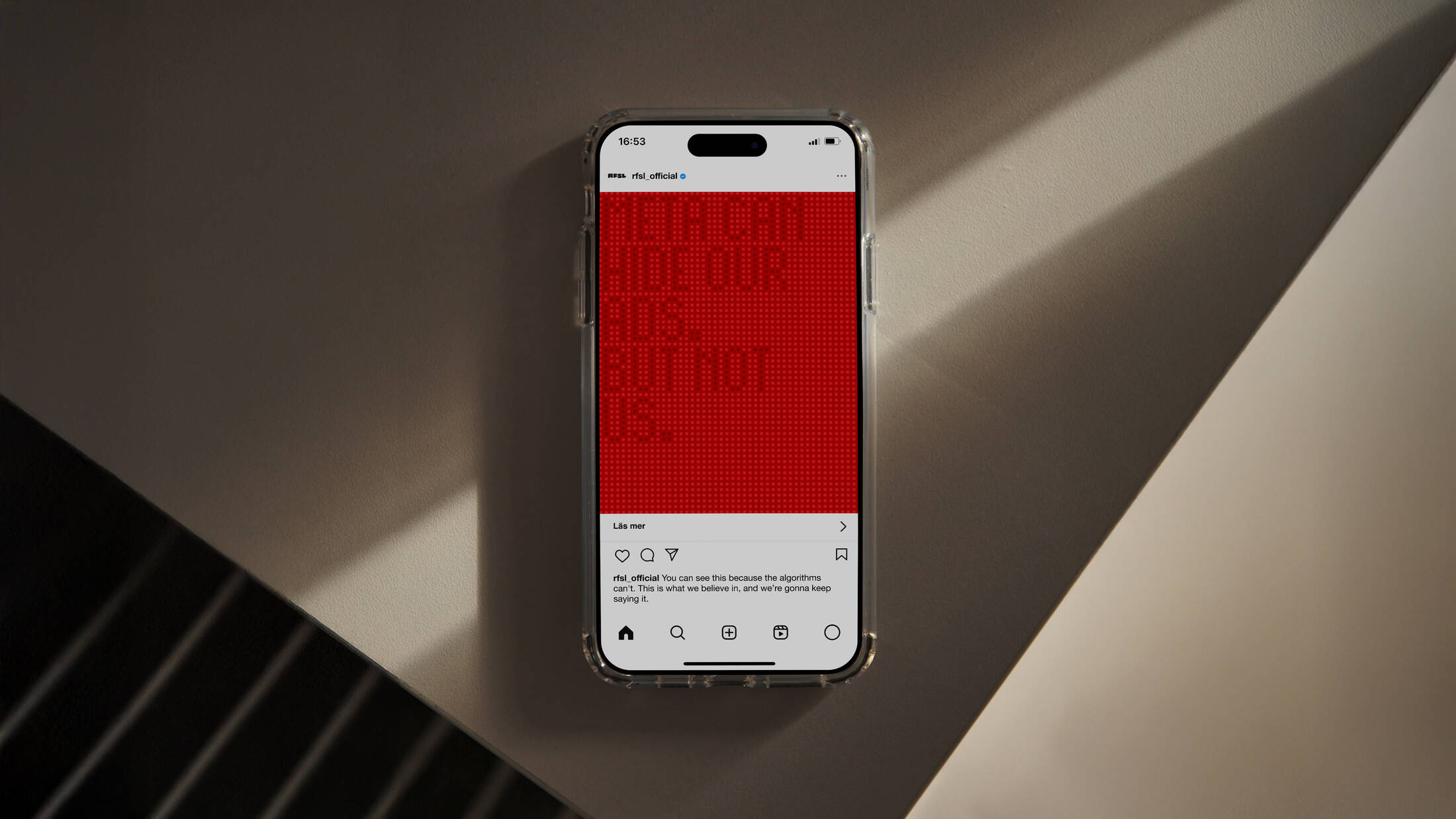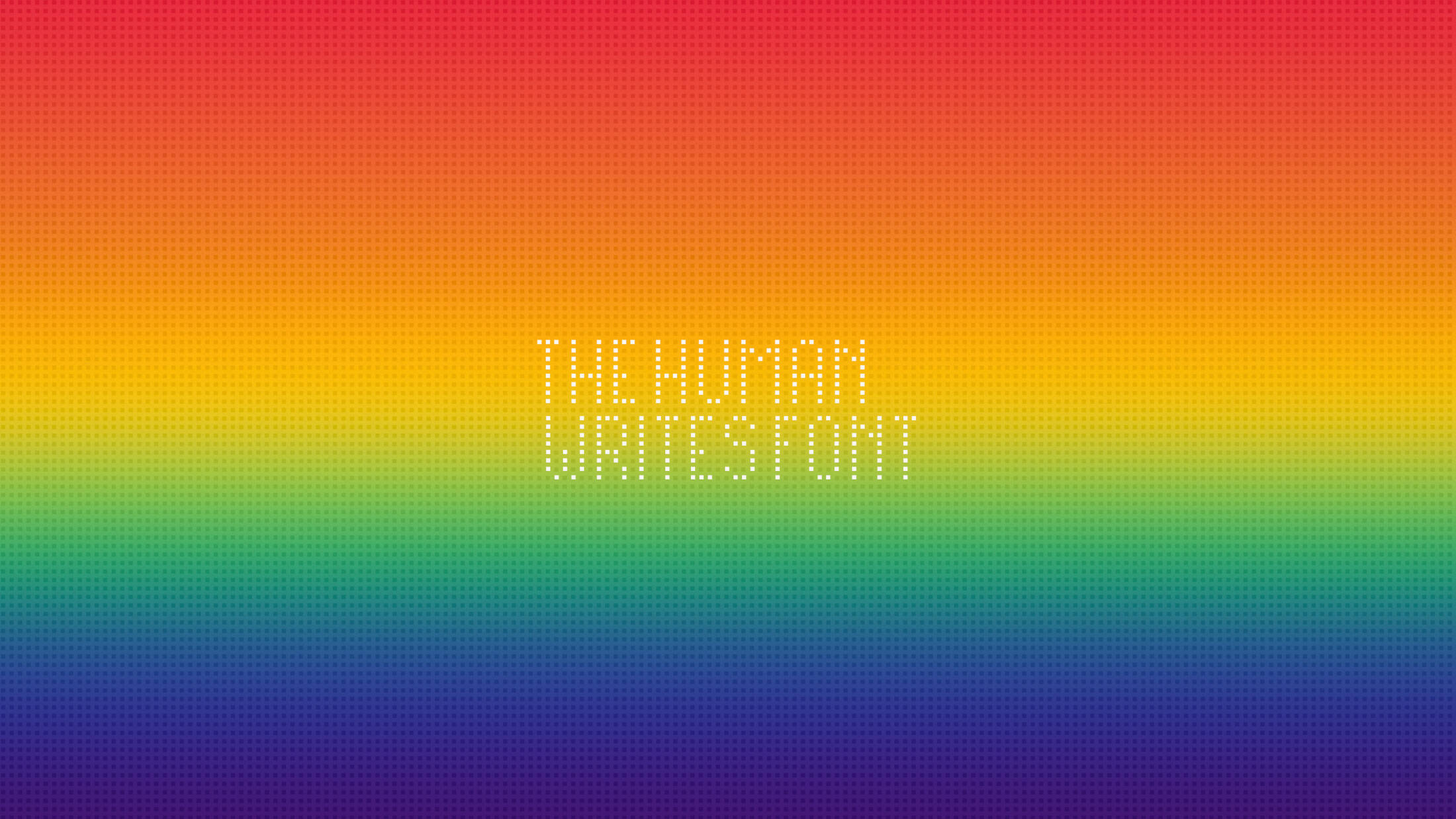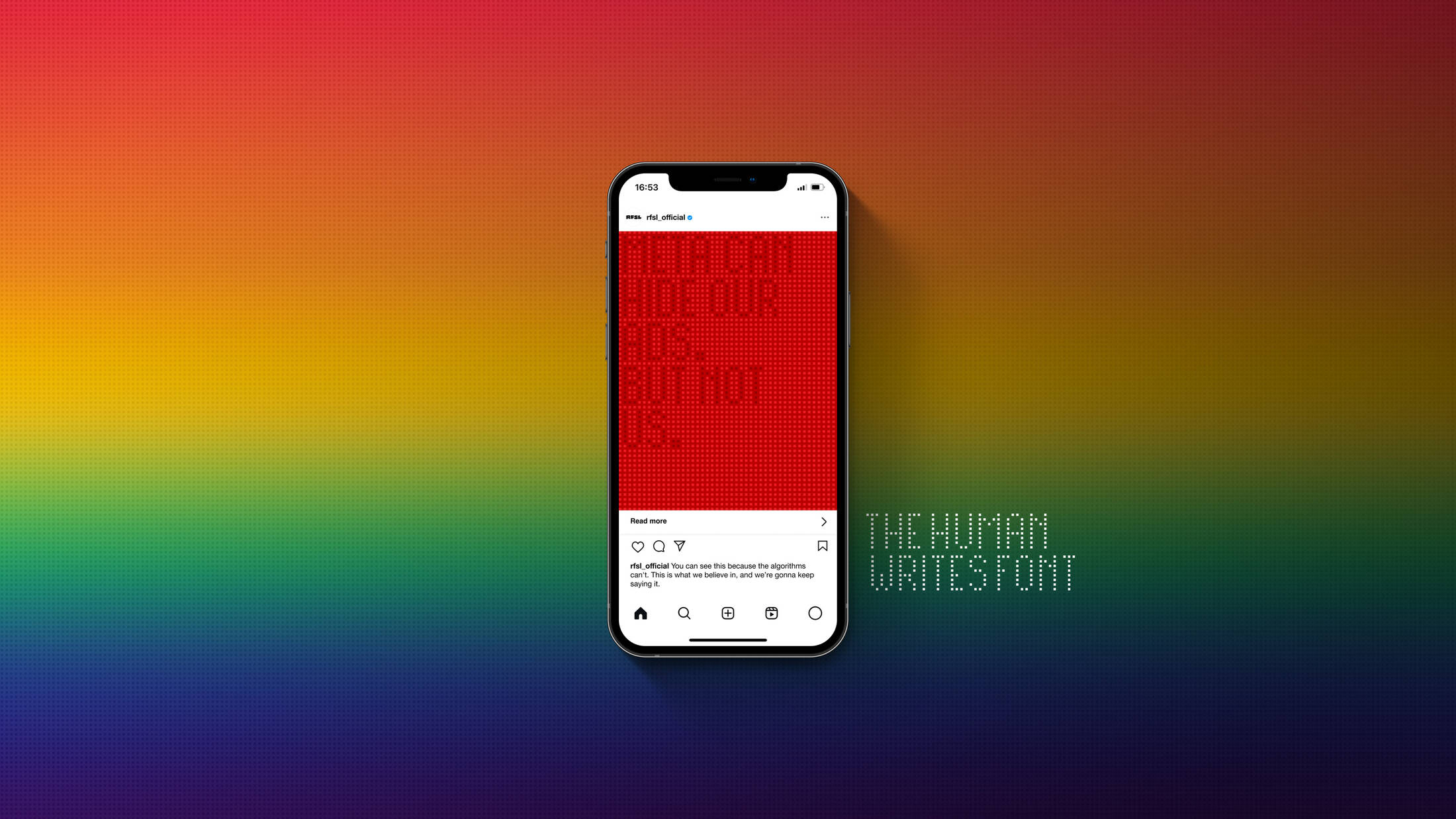
Meta Censors Human Rights – RFSL Challenges with an Invisible Font.
Meta is now banning all political advertising within the EU, including messages about human rights. RFSL refuses to be silenced and is responding by launching a new, unique typeface that Meta’s AI cannot read: The Human Writes Font. “What happens to our democracy if big tech companies take control of it? The EU and the Swedish government must act now, ” says Felix König, RFSL.
Since October 6, 2025, Meta has stopped all political advertising on its platforms within the EU. The reason is a new EU regulation on greater transparency in political advertising, Regulation 2024/900. The purpose of the rules is to show who is behind a campaign, who funds it, and what it aims to achieve — a framework RFSL welcomes. But instead of ensuring transparency around political advertising, Meta has chosen another path: to block everything. This also applies to messages that have nothing to do with party politics, such as human rights, inclusion, and gender equality. For many non-profit organizations, this is a serious setback since Meta has often been an important channel for reaching the public. “Meta’s decision to censor public debate is deeply troubling. Messages like ‘Support refugees, ‘Gender equality for women,’ and ‘All trans people have the right to be heard!’ are suddenly seen as too political to be shared. The EU rules have good intentions to create more transparency, which is absolutely necessary. But Meta’s decision is not about transparency, it is censorship, ” says Felix König, Head of Communications at RFSL.
To highlight the issue and still reach people with its message, RFSL has developed a completely new and unique typeface: The Human Writes Font. The design of the font is invisible to Meta’s AI but fully readable to humans. In this way, the messages can slip under Meta’s radar and still be shared. “We know this is not a permanent solution. But it is a way to show how unreasonable it is that companies like Meta prevent organizations from talking about fundamental human rights. What happens to our democracy if big tech companies take control of it? The EU and the Swedish government must act now,” says Felix König, RFSL. RFSL now urges other organizations affected by the new rules to make their voices heard. On humanwritesfont.com, there is an open tool that uses the special typeface to create an image of the message, ready to be used in paid ads.